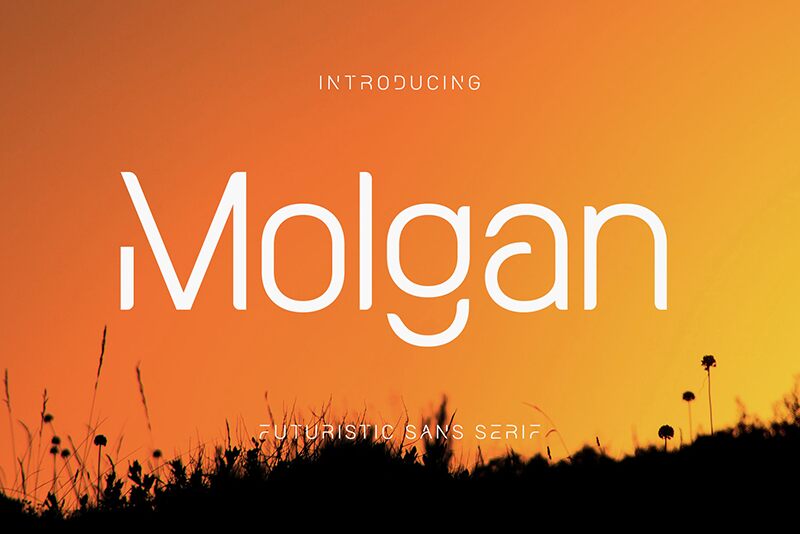
Molgan
Molgan, a light-weight font crafted by BrandSemut, stands out with its sleek and modern aesthetic. Its clean lines and uncluttered appearance evoke a sense of minimalism, making it an excellent choice for designers seeking to convey elegance and sophistication. Each letterform in Molgan is thoughtfully designed to ensure readability while maintaining a stylish edge.
This font's versatility allows it to effortlessly transition from corporate branding to digital interfaces, providing a contemporary flair that can uplift any creative project. Whether used in headlines or body text, Molgan brings a refreshing breath of simplicity to the typographic landscape.